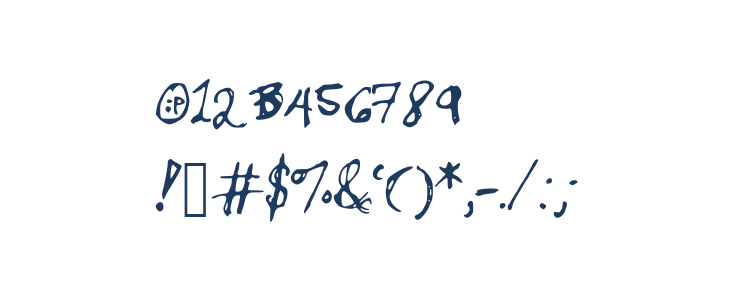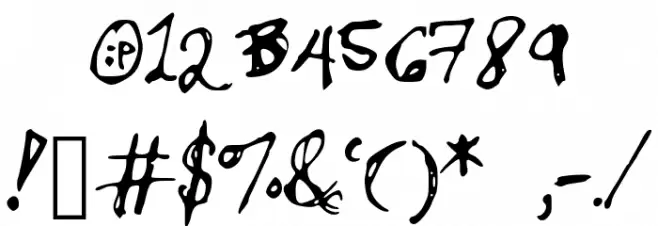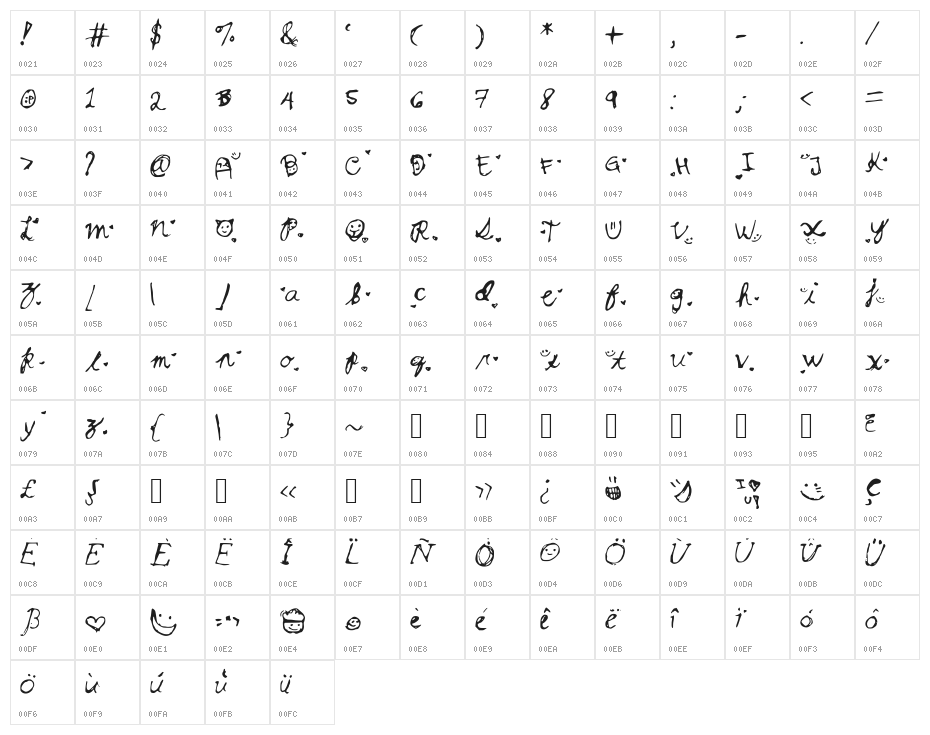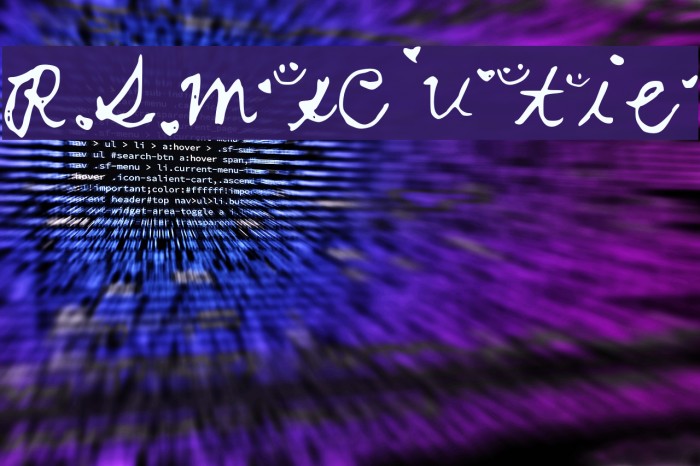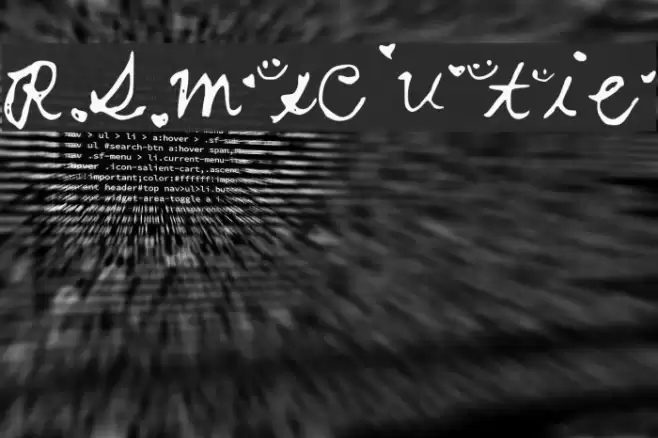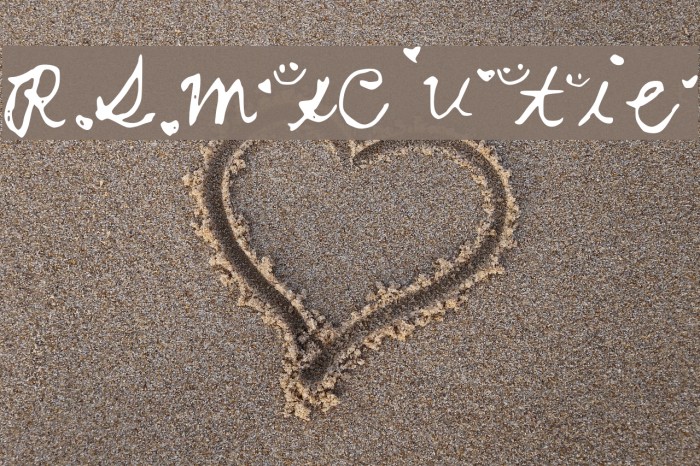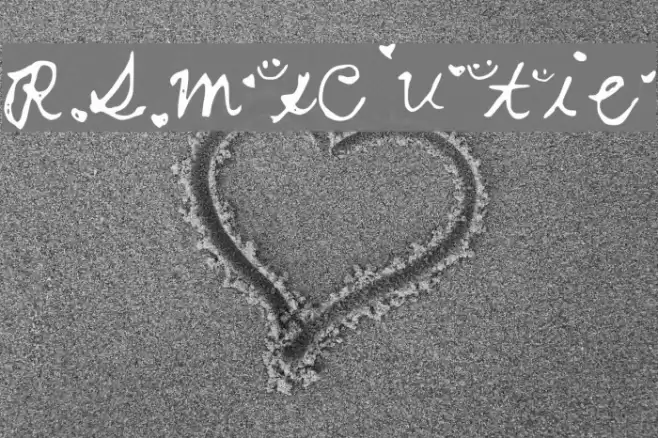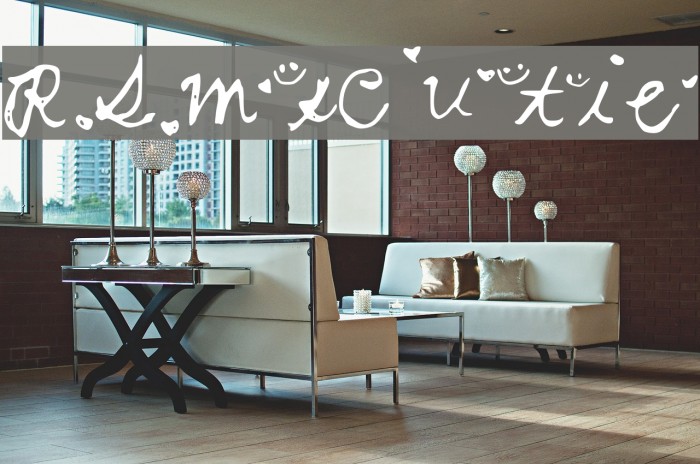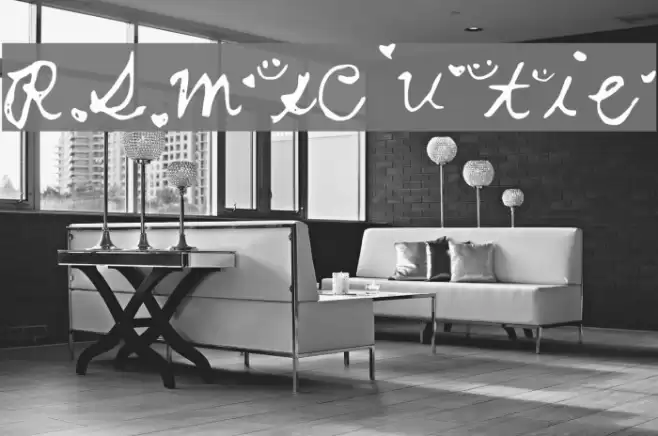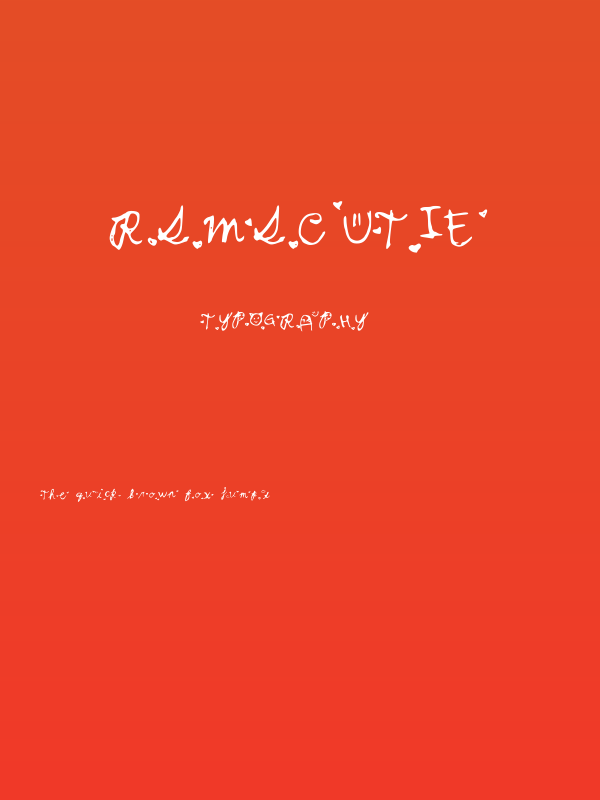
RSMsCutie Font
RSMsCutie Description
This playful and whimsical font features a unique design where each character is adorned with charming smiley faces and heart motifs. The letters have a hand-drawn, casual appearance, adding a sense of fun and creativity to any project. The uppercase and lowercase letters maintain a consistent style, with rounded edges and a slightly uneven baseline, enhancing the font's informal and friendly vibe. Numbers and special characters are equally decorative, incorporating the same playful elements. This font is perfect for projects that aim to convey joy, friendliness, and a touch of whimsy.